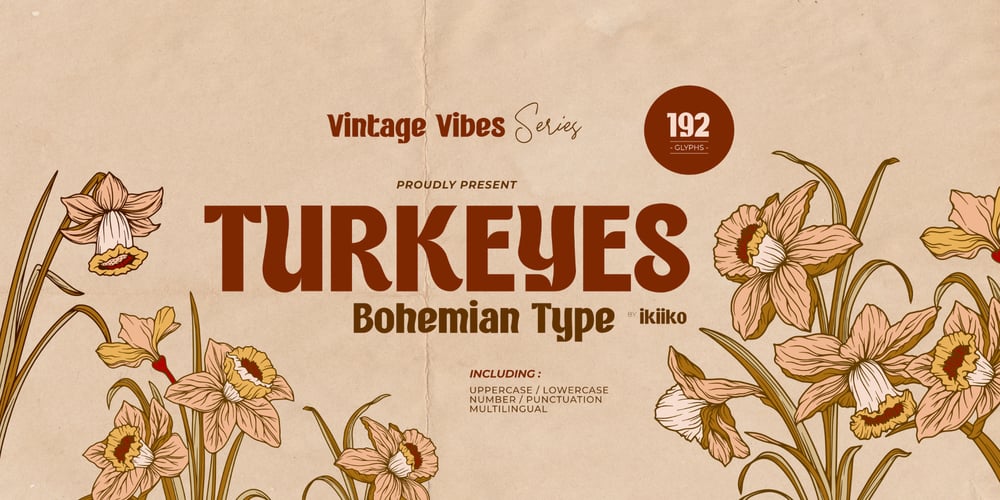
Turkeyes Font Family was designed by Andhika Pradana and published by IKIIKOWRK. Turkeyes contains 1 styles and family package options. Introducing Turkeyes – Bohemian Type, created by ikiiko.Turkeyes is a vintage stylish display type that has both a modern and retro look. This font is inspired by the bohemian era, the perfect one to create layout design in the 60s or 70s. This font have unique shape that to give to your brand logo, poster, food & beverages, and another project to a have unique or vintage look.What’s included? Uppercase & Lowercase Number & Punctuation Multilingual Support Works on PC & Mac Enjoy our font and if you have any questions, you can contact us by email : ikiikowrk@gmail.com